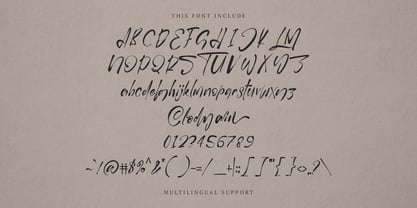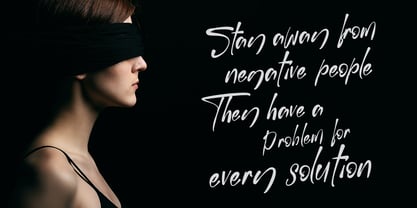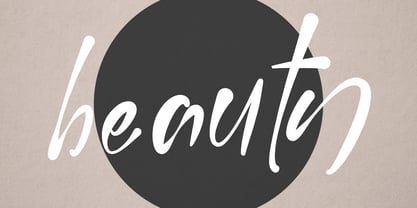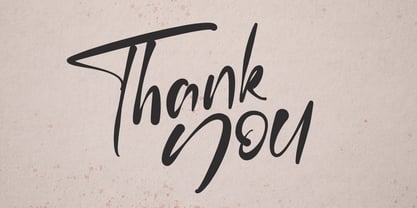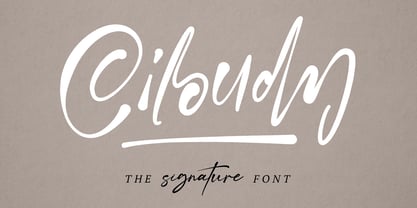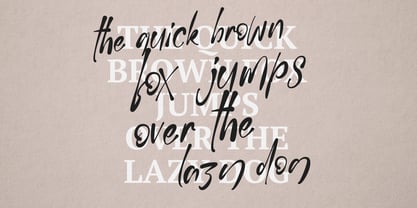
MC Ciloudy
por Maulana Creative
La familia tipográfica MC Ciloudy fue diseñada por Gilang Maulana y publicada por Maulana Creative. MC Ciloudy contiene 1 estilos. Más información sobre esta familia
Give your designs an authentic brush handcrafted feel. “Ciloudy Signature Brush Font” is perfectly suited to signature, stationery, logo, typography quotes, website header, branding and more.
Diseñadores: Gilang Maulana
Fundición: Maulana Creative